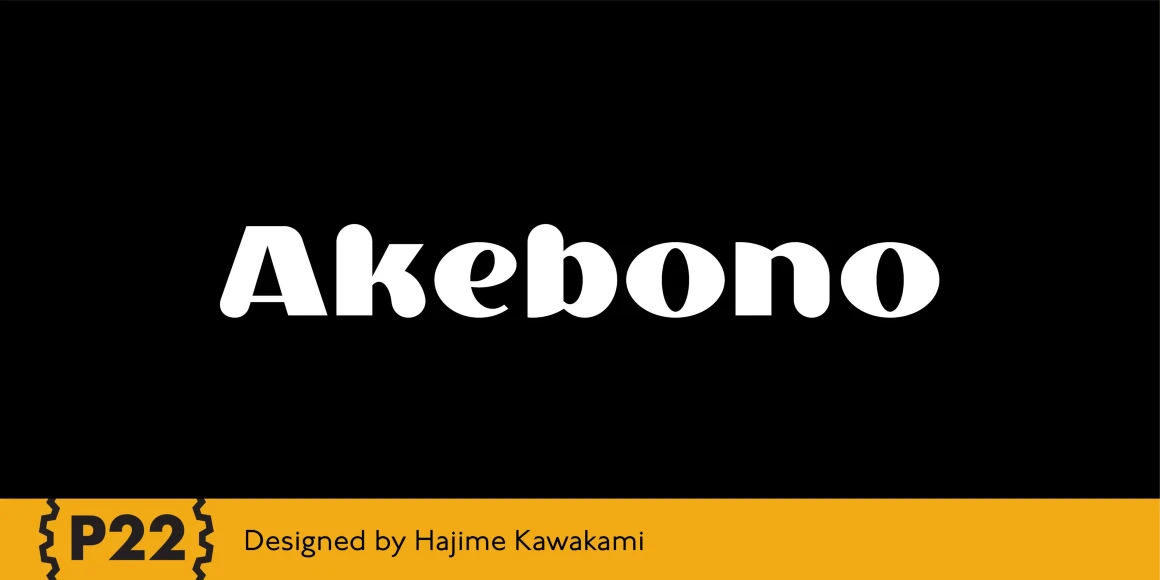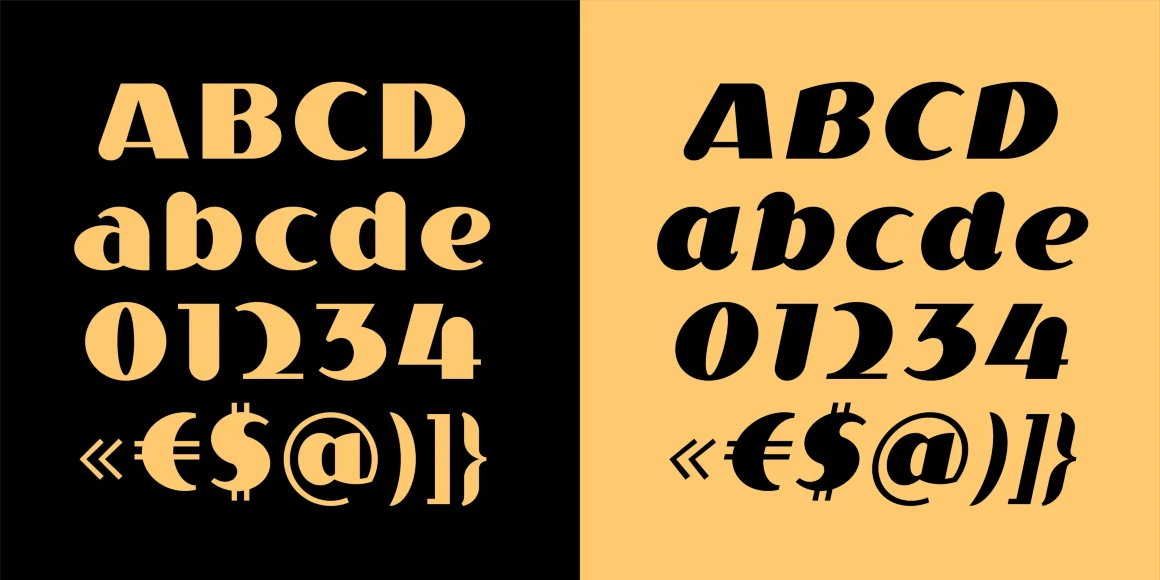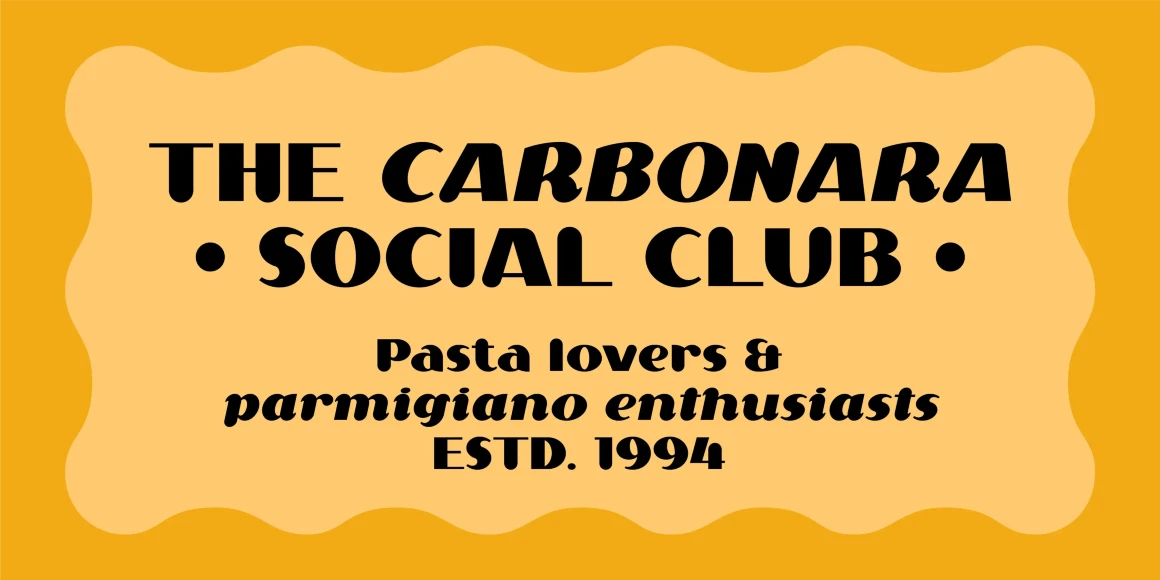
Akebono
In Japanese, Akebono means dawn. The font expresses the pleasure of imbalance, as the stems and strokes are mixed — straight and round with slender terminals and arches. Akebono is available in three styles: Regular, Alternate, and Italic.
Designed by Hajime Kawakami